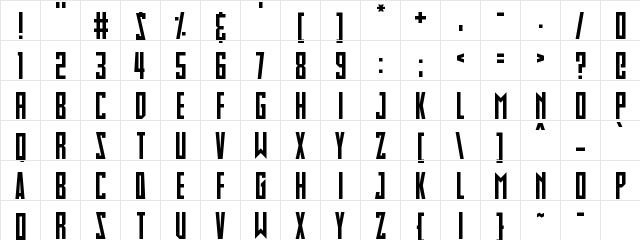
Slimbots Regular
Design Context for Slimbots Typeface
Slimbots is a composed and adaptable typeface that performs quietly and consistently across a wide range of design contexts.
Pro Tip: Use Slimbots in both headline and body roles to test its range before committing to a single application.